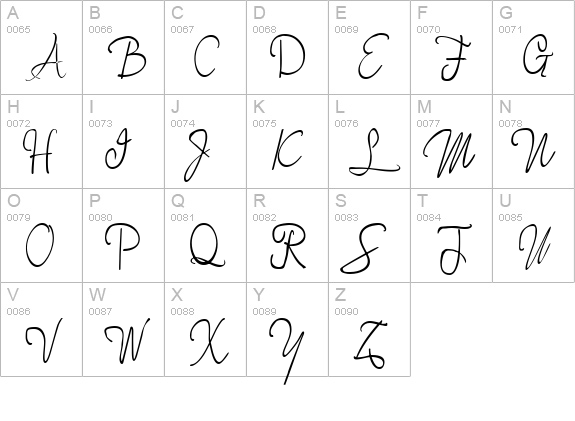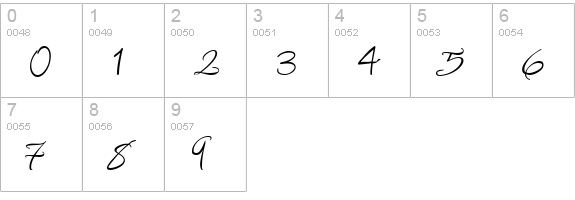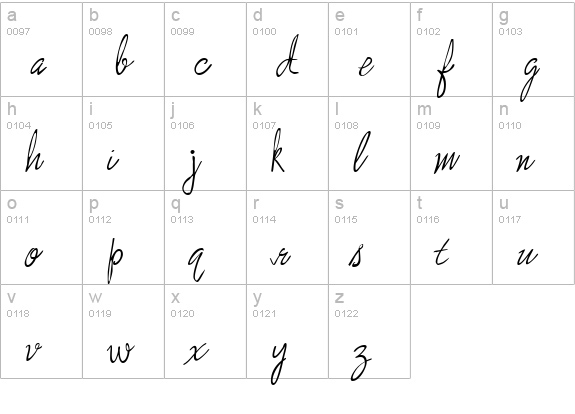
Enchanted Prairie Dog font is a whimsical and charming typeface that will bring a touch of magic to your projects. With its playful curves and unique design, this font is perfect for adding a fun and enchanting vibe to any creative endeavor. Whether you're designing greeting cards, invitations, or branding materials, Enchanted Prairie Dog font is sure to make your text stand out. The best part is that Enchanted Prairie Dog font is completely free to download at FontsMarket.com. So go ahead and add a sprinkle of magic to your designs with this delightful and captivating font. Let your creativity run wild with Enchanted Prairie Dog font!